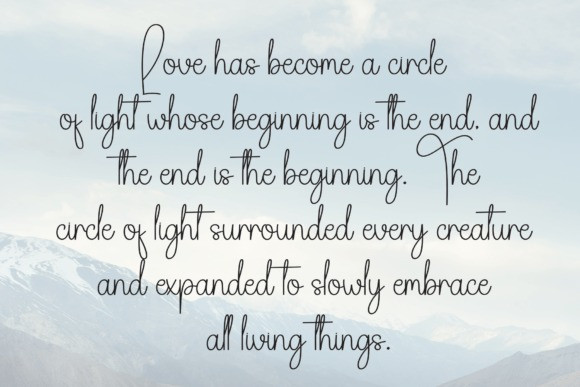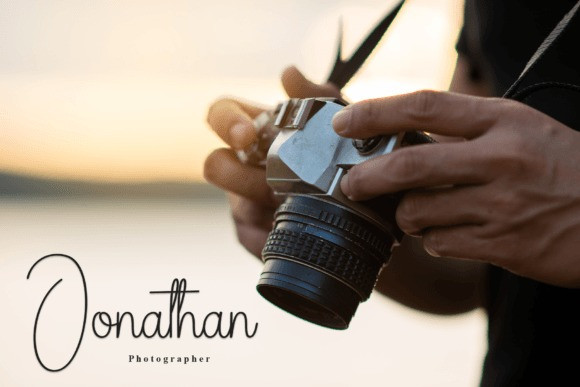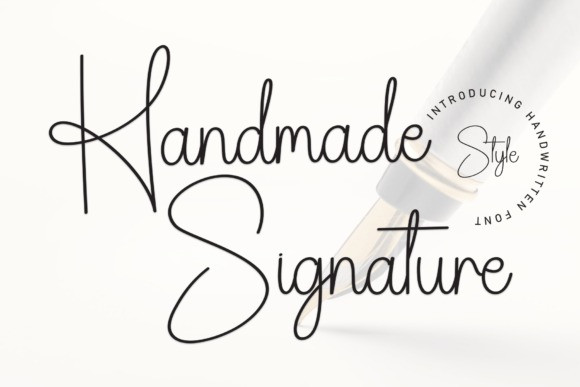
Handmade Signature Handwriting Font
Handmade Signature Handwriting Font is a lovely font that mimics the elegance of a personal signature. With its graceful strokes and stylish flair, this font adds a touch of sophistication to your projects. Perfect for adding a personalized and handcrafted feel to your designs, Handmade Signature is an ideal choice for signatures, logos, and any creative work that demands a touch of individuality. Make your mark with this charming and refined font.